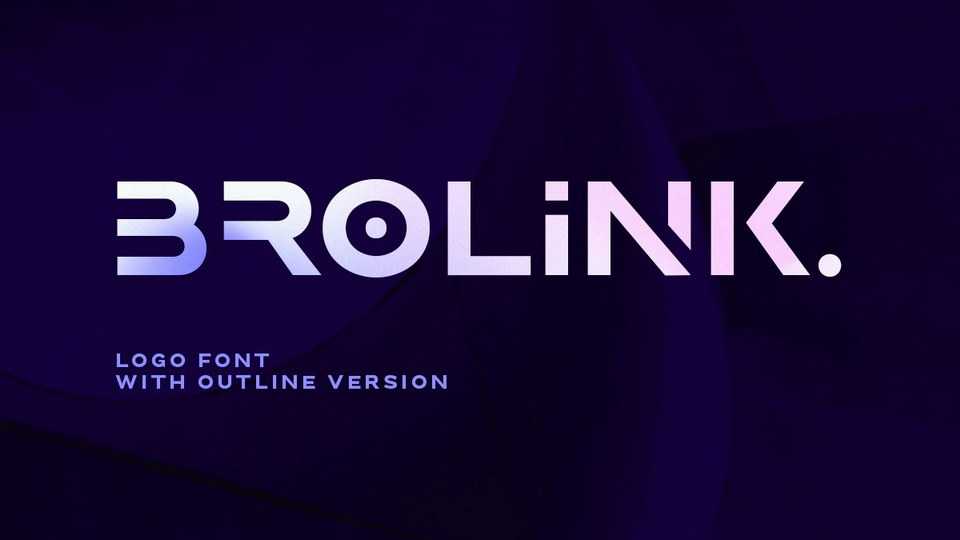
Download Brolink font, a wide bold display typeface with unique lowercase letters that will make your design looks sci-fi and modern. Use Brolink for any purpose, especially to make logotype.